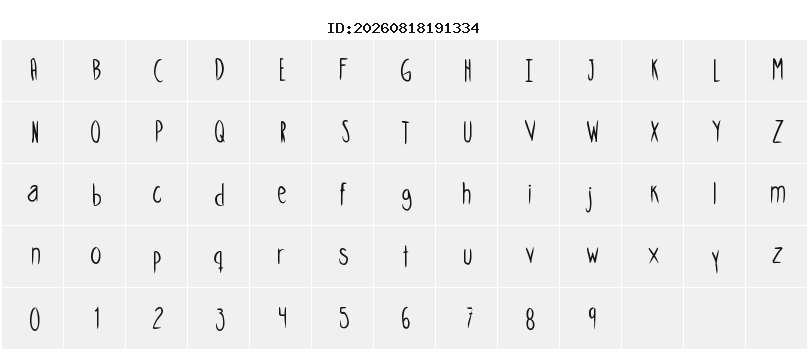
Skinnycookiesbold Preview
• Font Name: Skinnycookiesbold
• Full Font Name: Skinnycookiesbold
About Skinnycookiesbold.ttf
Skinnycookiesbold.ttf is a modern, elegant sans-serif font designed for ultimate readability and visual harmony. Perfect for branding, headlines, web design, and print materials.